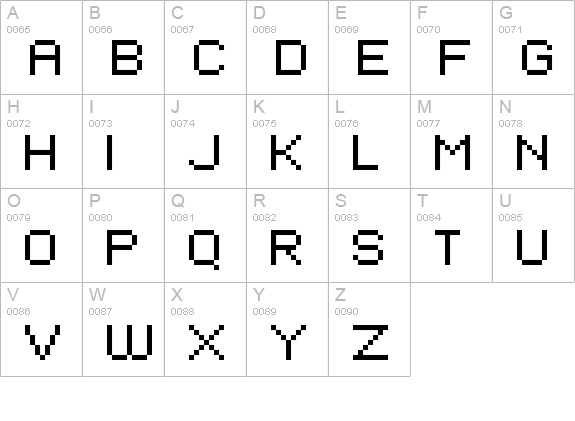
Introducing the captivating and versatile Standard 07_54 font, a true masterpiece in the world of typography. This font is a seamless blend of elegance and modernity, making it the perfect choice for a wide range of design projects. With its clean lines, balanced proportions, and exceptional legibility, Standard 07_54 effortlessly captures the essence of timeless sophistication. Whether you're designing a logo, creating eye-catching headlines, or crafting a visually stunning website, this font is guaranteed to elevate your designs to new heights. What sets Standard 07_54 apart is not only its impeccable design but also its availability for free. That's right, this remarkable font can be freely downloaded at FontsMarket.com, the go-to destination for font enthusiasts and designers alike. By offering Standard 07_54 for free, we aim to empower creatives from all walks of life, providing them with an exceptional tool to express their vision and make a lasting impact. With this font in your design arsenal, the possibilities are truly endless. Embrace the power of Standard 07_54 and witness how it effortlessly transforms your projects into works of art. Download it for free at FontsMarket.com today and unleash your creativity like never before.